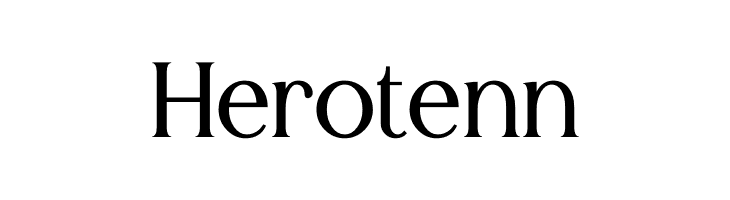
A classic serif font with elegant lines and moderate contrast, suitable for versatile applications.
A sophisticated and elegant font with modern, slender strokes and subtle contrast.